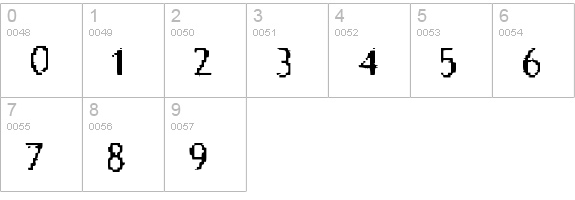
Aileenation Font Details
Aileenation font is a striking and modern typeface that exudes sophistication and elegance. Its sleek lines and sharp angles make it perfect for creating eye-catching designs and captivating visuals. The font's unique style sets it apart from traditional fonts, making it a great choice for projects that require a touch of creativity and personality. What's even better is that Aileenation font is completely free to download at FontsMarket.com, allowing you to access this stunning typeface at no cost. Whether you're working on a professional project or a personal creative endeavor, Aileenation font is sure to make a statement and elevate your design to the next level. Download it today and unleash your creativity with this exceptional font.